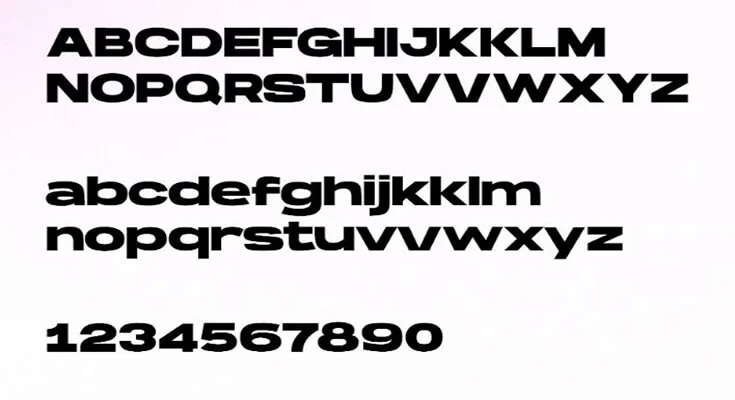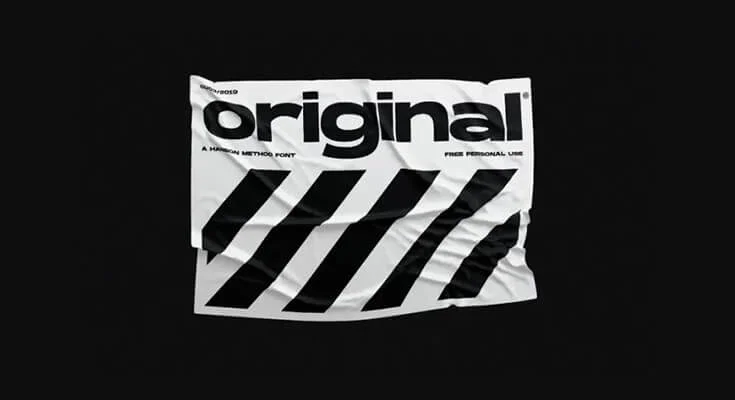
Hanson Font is a beautiful and geometric typeface that has a wonderful symmetry to go with its chunky bold and thick character as a font.
And it is the latest display sans serif typeface from Hanson Method. Works well for bold strong brand identities, logotypes, posters & more
This font is good for quirky design purposes. It is suitable for brand design purposes due to its attractive features. Its chunky design style is very integrated and popular in the market.
Hanson Font comes in a single weight that has more than 56 soft edges and extra bold characters along with numbers and alternates. Moreover, this font contains 154 glyphs and 1114 binary stored kerning pairs
The font can be used in a variety of contexts, from bold headlines to the more subtle body text, and it pairs well with other fonts, allowing designers to create visually compelling designs with ease.
This font is suitable for postcards, pants, t-shirts, blouse covers, social media posters, flyers, headers, titles, striking editorials, fashion designing, branding, product packaging, and different kinds of cloth designing purposes.
Overall, the Hanson Font is a stylish and practical choice for any design project. Its sleek and modern design, combined with its legibility and versatility, make it a favorite among designers and creatives.